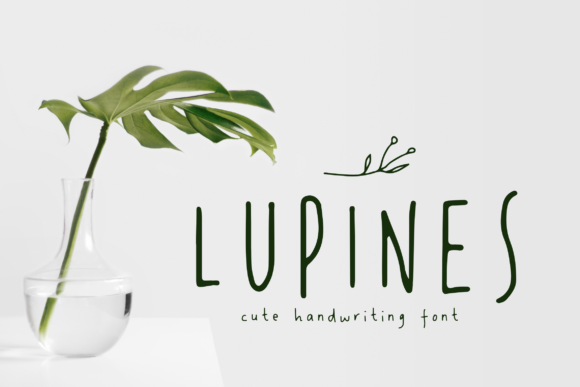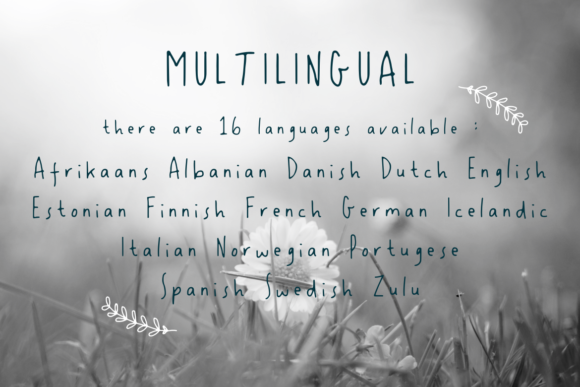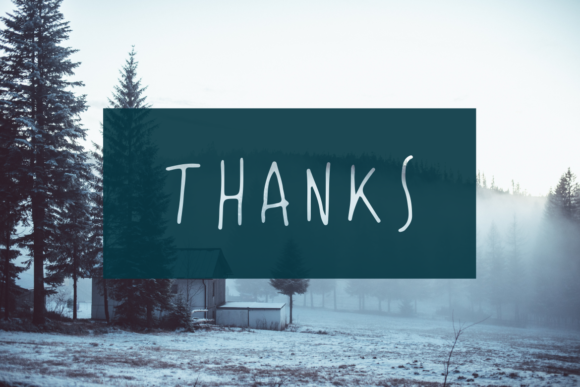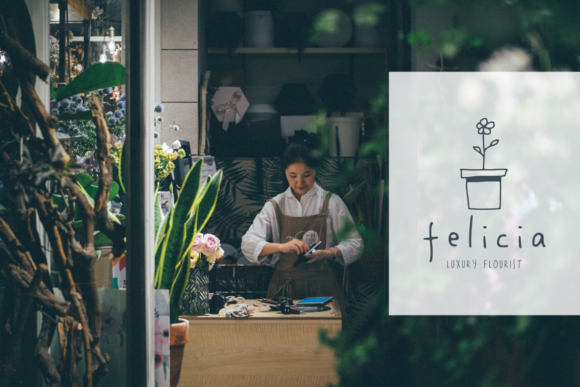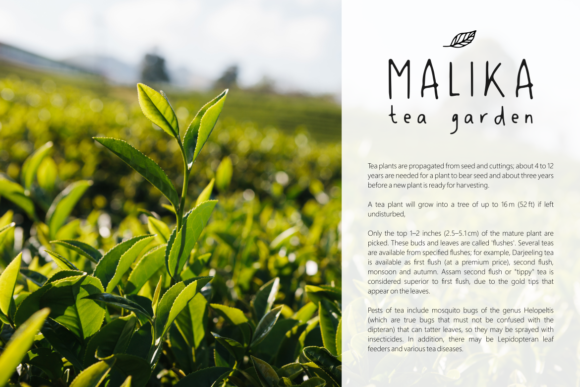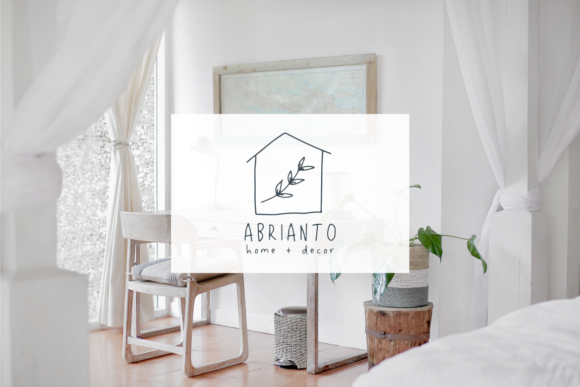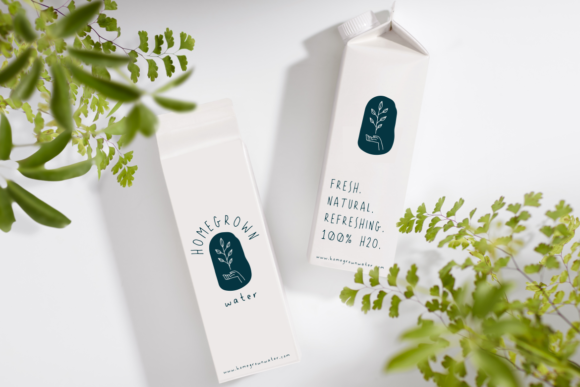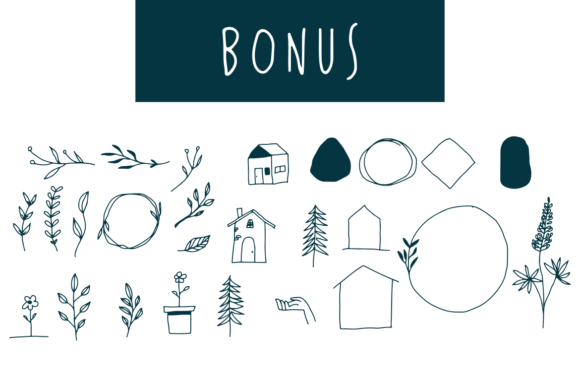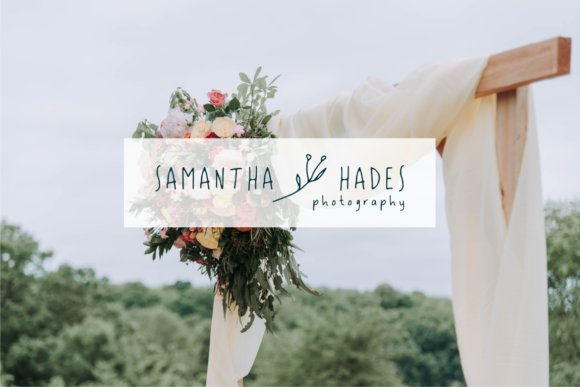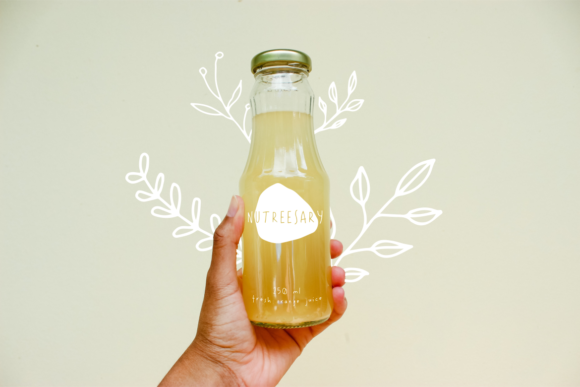
Lupines Font
About Lupines Font
Lupines is a cute and delicate handwritten font. Thin and tall lettered, Lupines is incredibly versatile, fitting both formal and informal designs.